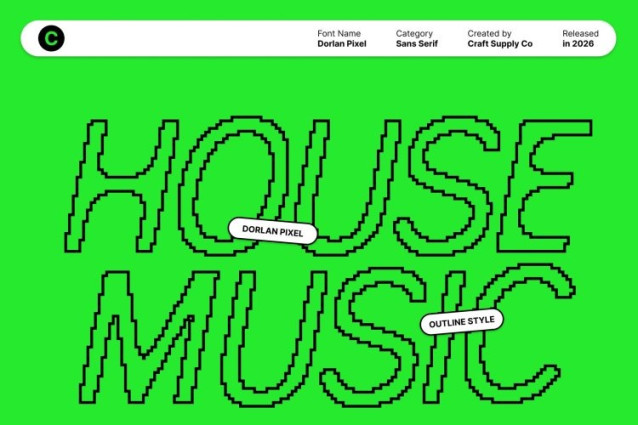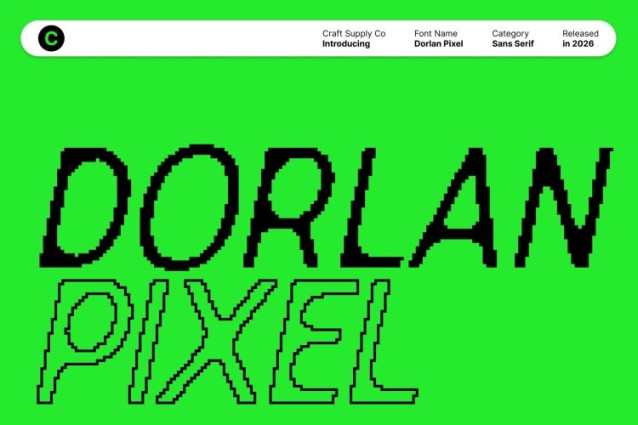
Dorlan Pixel Font
Dorlan Pixel Font This is a contemporary sans serif font that combines clean, modern letterforms with a distinctive pixel style. This fusion creates a fresh digital aesthetic inspired by modern interfaces and retro technology, giving your designs a sharp, eye-catching presence with a tech-forward attitude.
Clean Structure, Digital Character
Built on sleek lines and balanced proportions, this font maintains clarity and readability while the pixel detailing adds character and visual interest. The result is a font that feels modern and structured, yet expressive perfect for designs that need a strong digital or futuristic impression.
Versatile for Digital and Visual Media
This font works seamlessly across a wide range of applications, including branding, posters, logos, banners, websites, and user interfaces. Its contemporary sans serif foundation ensures flexibility, while the pixel style makes it stand out in digital, gaming, and technology-inspired projects.
Refined, Accessible, and Impactful
Despite its bold pixel personality, this font remains elegant and easy to use. Suitable for both professional designers and beginners, it helps create polished, modern visuals with ease making it an ideal choice for projects that demand contemporary style with a distinctive digital edge.